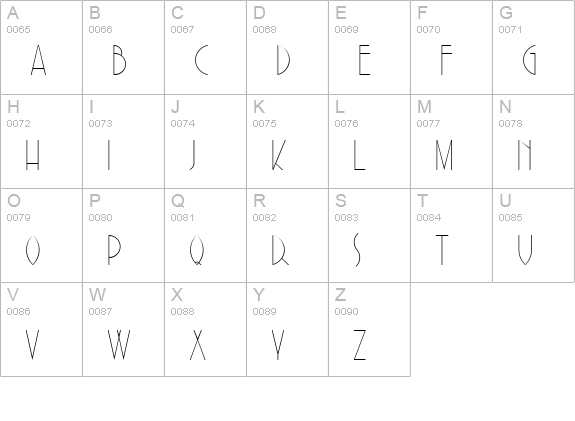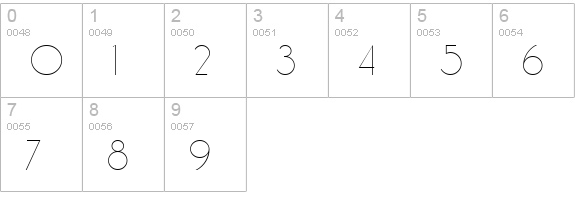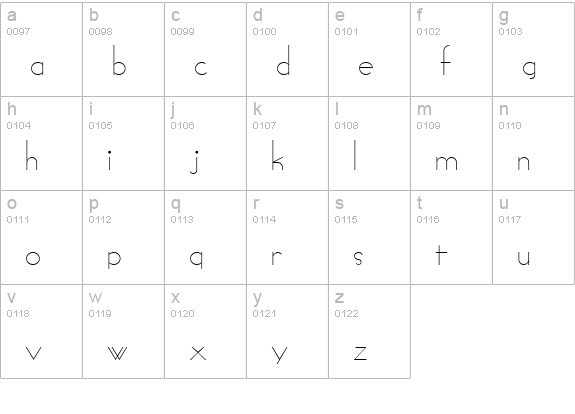
Sadelle Font Details
Sadelle font is a stunning display typeface that exudes elegance and sophistication. With its delicate curves and graceful letterforms, Sadelle captures the essence of timeless beauty, making it the perfect choice for any design project that seeks to evoke a sense of refinement. This font is imbued with a sense of nostalgia, reminiscent of classic calligraphy but with a contemporary twist. Each letter is meticulously crafted, with attention to detail that is evident in every stroke. Sadelle's flowing lines and harmonious proportions create a harmonious and balanced visual aesthetic, ensuring that it stands out from the crowd. One of the most enticing aspects of Sadelle font is that it is absolutely free. That's right, you can freely download this exquisite typeface at FontsMarket.com. This means that you can unleash your creativity without any barriers or limitations, and bring your design visions to life with ease. Whether you are creating invitations for a high-end event, designing a luxurious logo, or crafting a sophisticated branding identity, Sadelle font is the perfect choice. Its versatility allows it to shine in a variety of contexts, from elegant wedding stationery to high-fashion magazine spreads. Sadelle font is not only visually stunning, but it also boasts excellent legibility, making it a practical choice for both print and digital applications. The smooth curves and well-defined letterforms ensure that every word is easy to read, regardless of size or format. So why wait? Download Sadelle font for free at FontsMarket.com and unlock a world of design possibilities. With its timeless beauty and effortless charm, Sadelle font is sure to elevate your projects to new heights of sophistication and elegance.